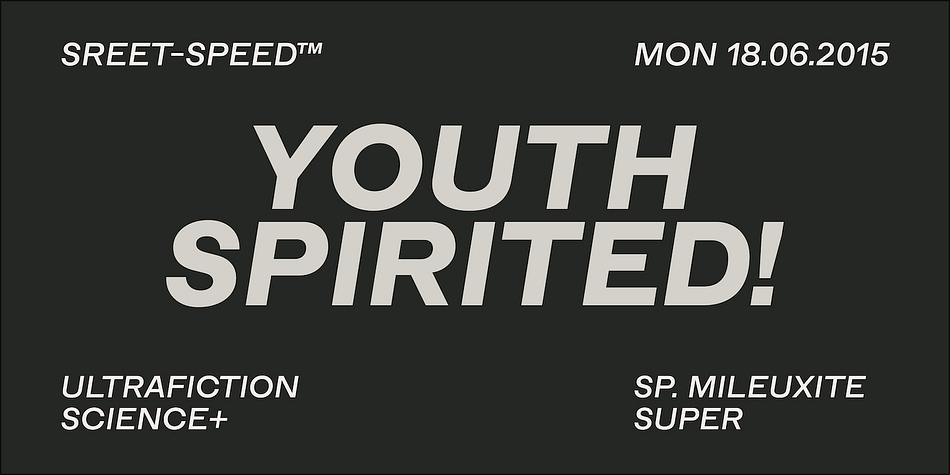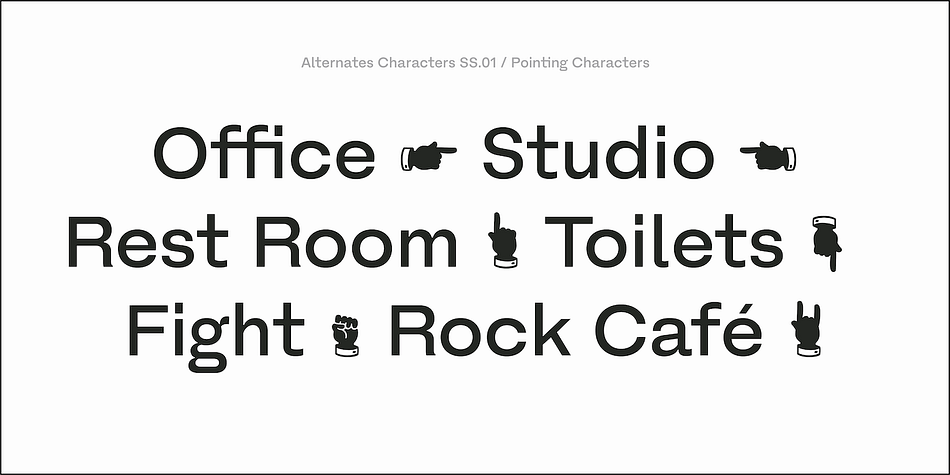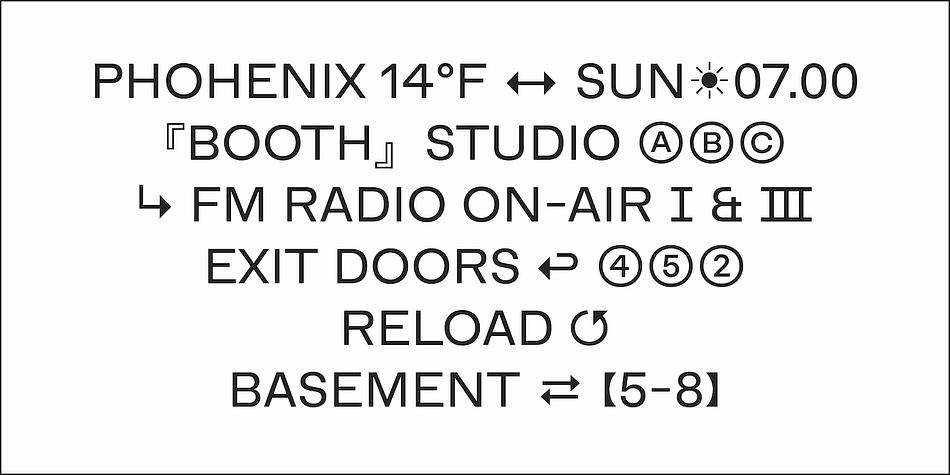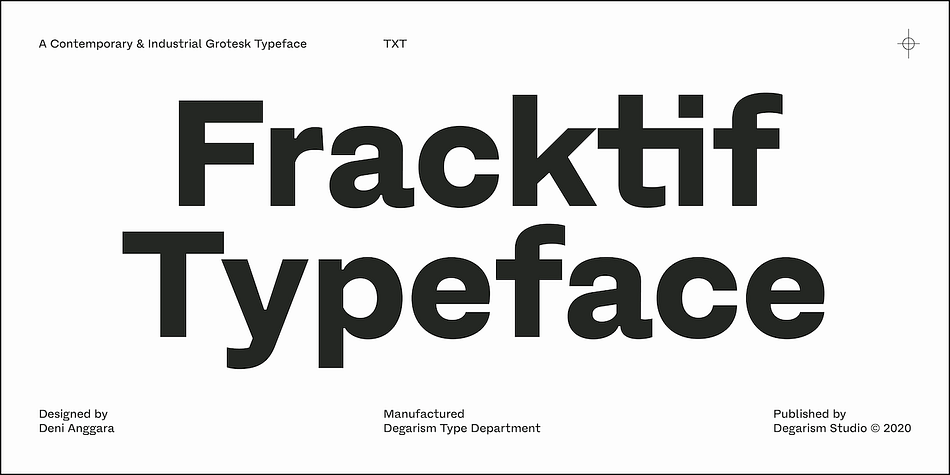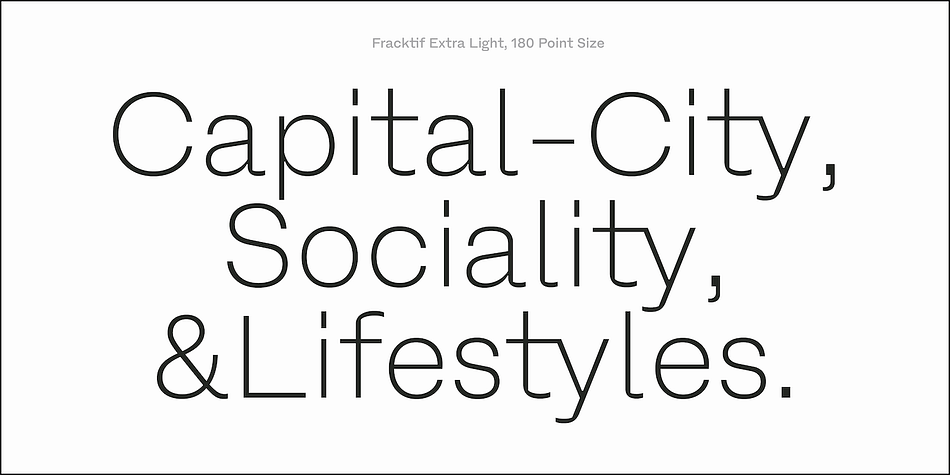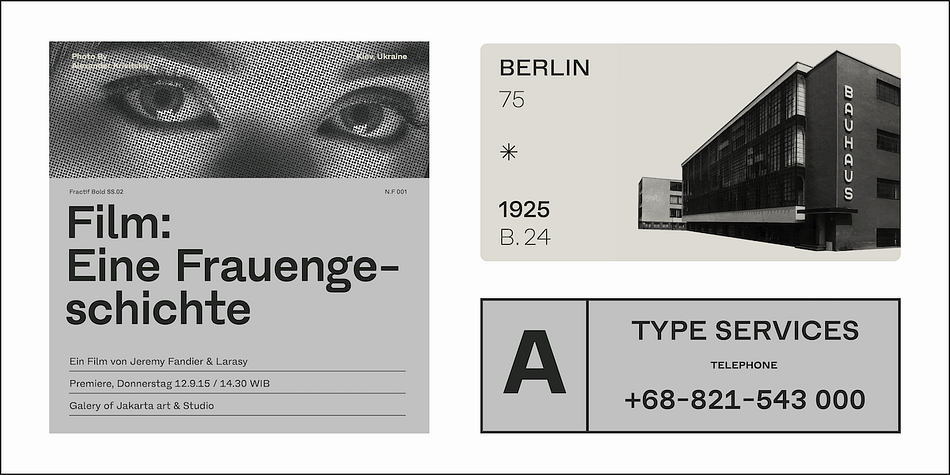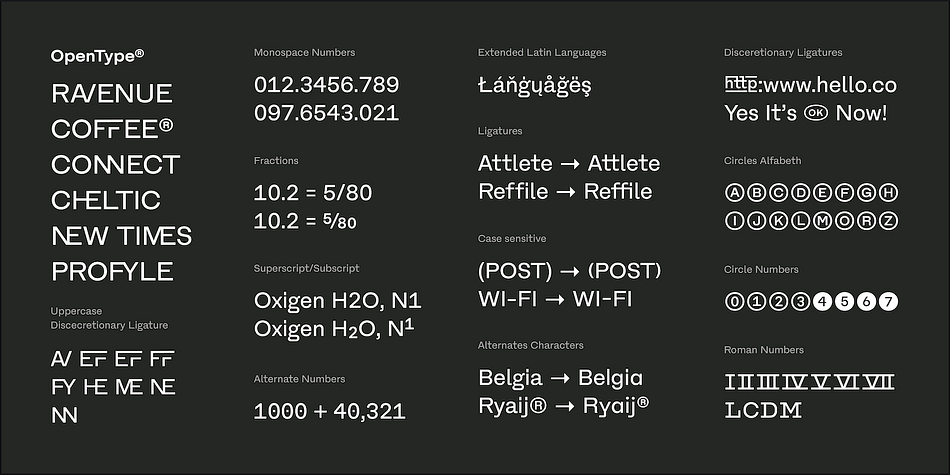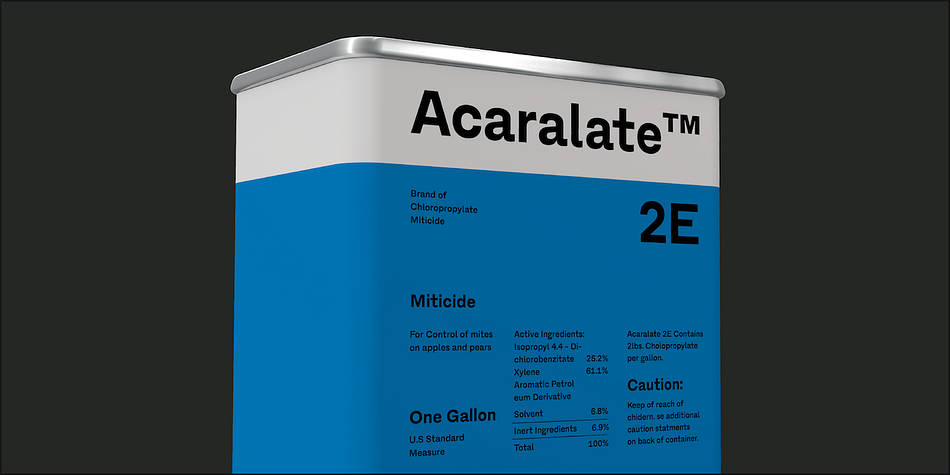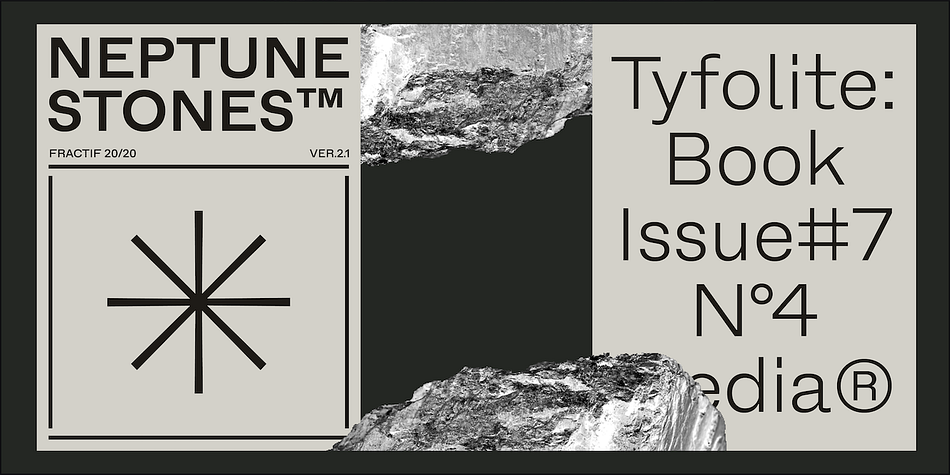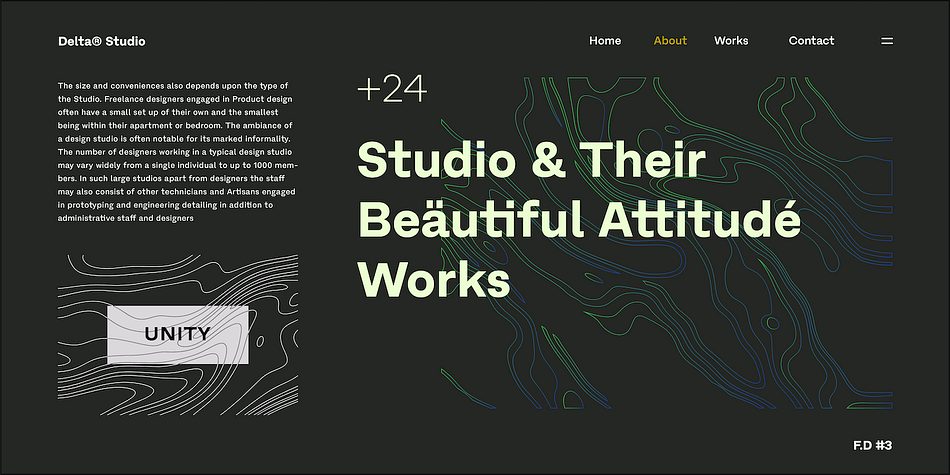
Fracktif
Designed by Deni Anggara, Fracktif is a sans serif font family. This typeface has fourteen styles and was published by Degarism Studio.
Fracktif typeface a modern contemporary Grotesk, Fracktif Typeface reveals a strong constructivist identity with classic type character proportions. Inspired by Mid-century modern geometric architecture develops radical shapes through many distinctive letters with clear modernist roots and a strongly contemporary finish, It works from footnote to poster size.
Fracktif typeface family consists of 7 weight plus matching italics, Designed with powerful OpenType features such as alternate characters, Standard ligatures, discretionary ligature, case-sensitive forms, fractions, super- and subscript characters. also included with various arrows and symbols.